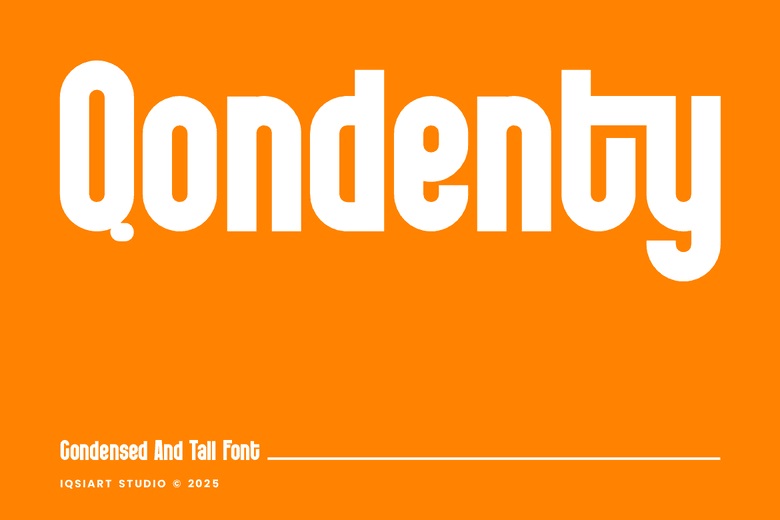
Qondenty Font
Qondenty features distinctive traits which make it a distinctive sans serif typeface. The expert creation of this typeface makes it a firm favorite which boosts your creative capability to its absolute peak.
Qondenty Sans Serif Font